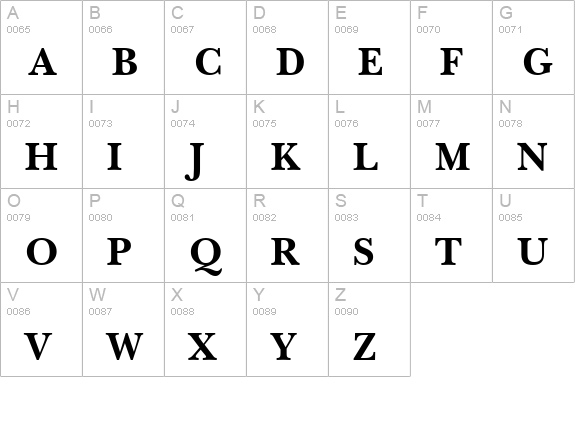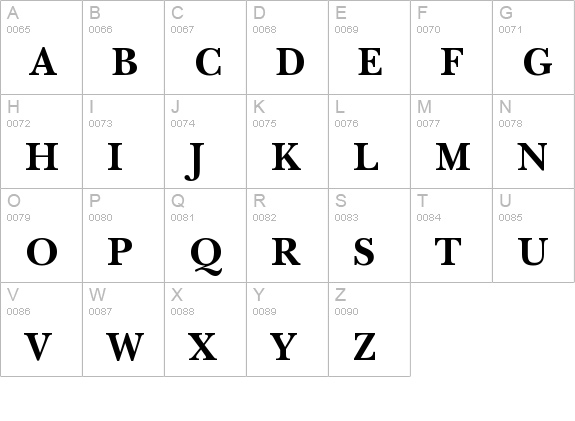
Baskerville Black SSi Bold Font Details
Baskerville Black SSi Bold is a maximum-weight, dramatic variant in the Baskerville typeface family \xE2\x80\x94 well suited to maximum-impact headlines, posters, and packaging.
Baskerville Black SSi Bold font is a timeless and elegant typeface that exudes sophistication and authority. Its strong and bold letterforms make a statement while maintaining a sense of classic refinement. Perfect for headlines, logos, and branding materials, this font commands attention and leaves a lasting impression. The best part? Baskerville Black SSi Bold font is available for free download at FontsMarket.com. Now you can elevate your designs with this premium typeface without any cost. Don't miss out on the opportunity to enhance your projects with the distinctive style and versatility of Baskerville Black SSi Bold font. Download it today and make your creations stand out from the crowd.